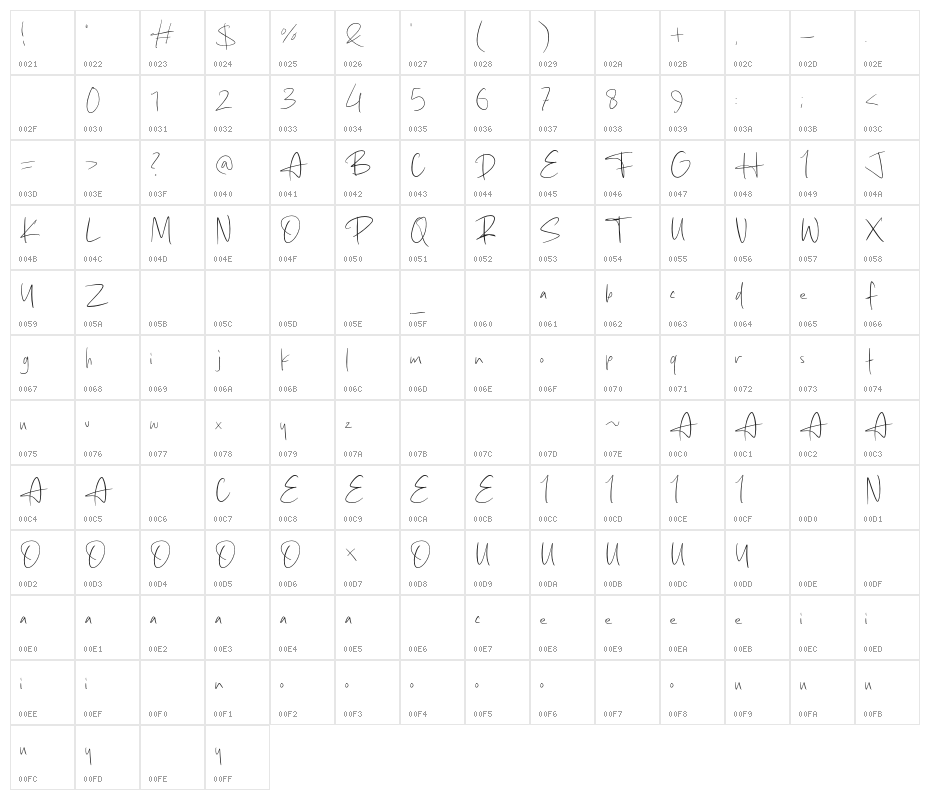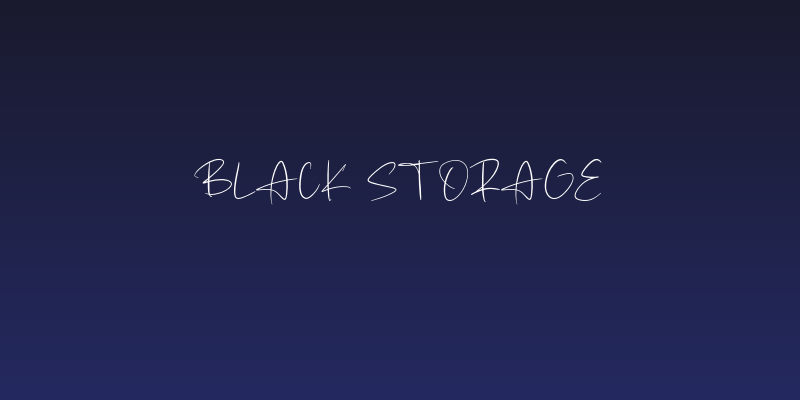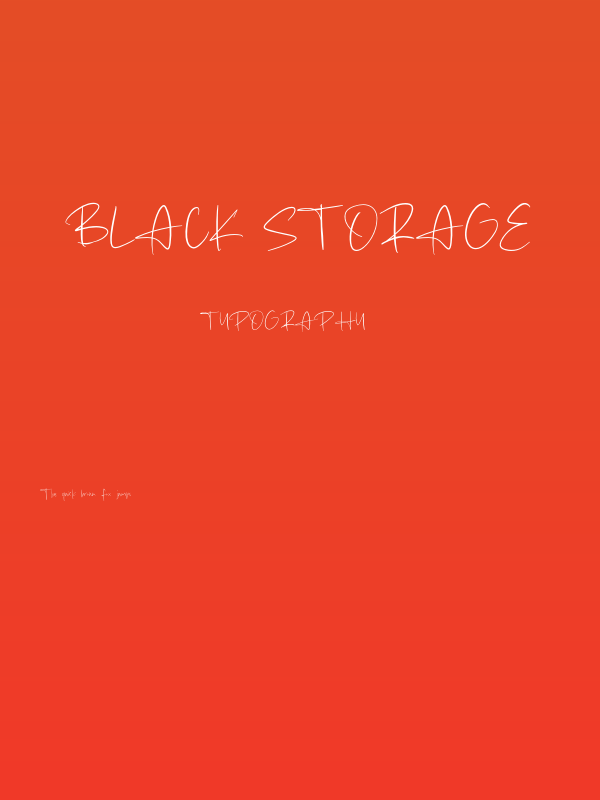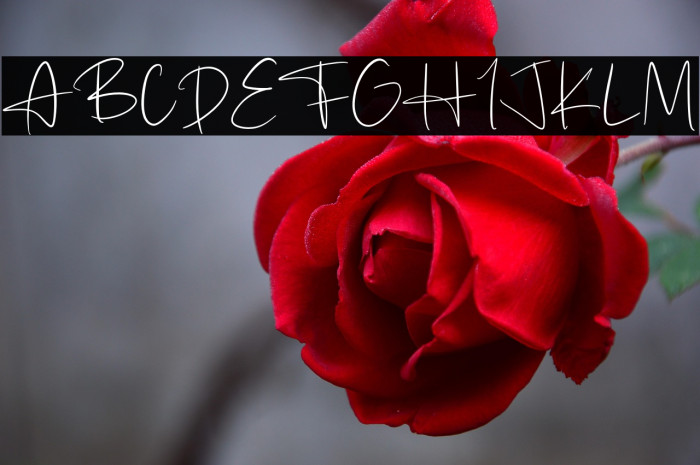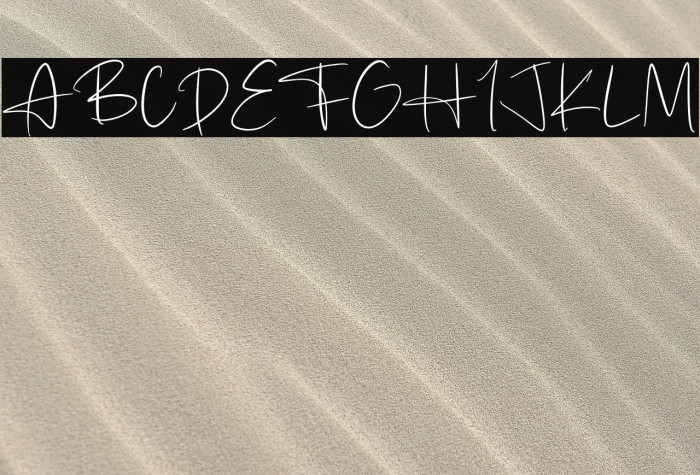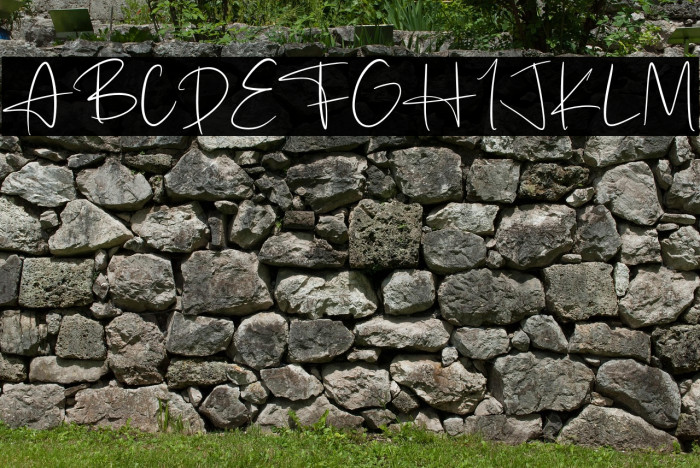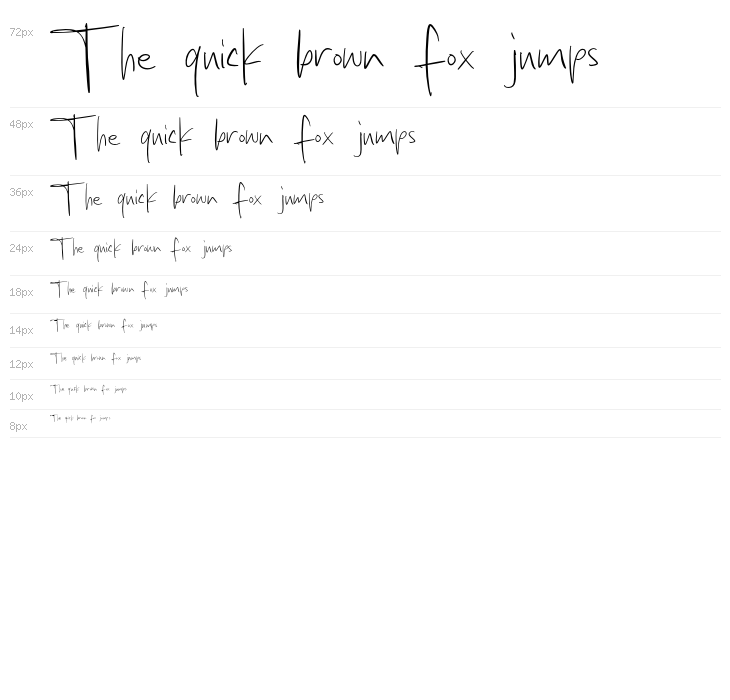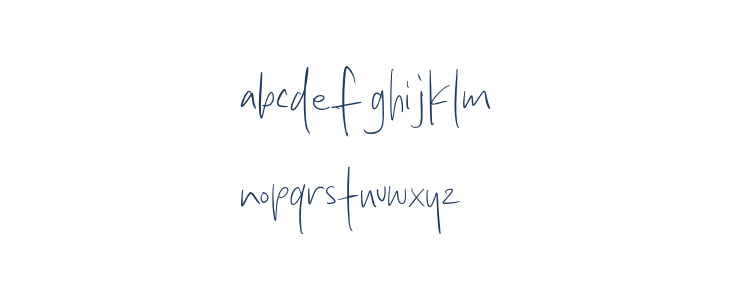
Black Storage Font
Black Storage Description
This font exudes a casual, handwritten style with a playful and informal appearance. The characters are slightly irregular, mimicking the natural flow of handwriting. The strokes are thin and consistent, giving it a light and airy feel. The uppercase and lowercase letters maintain a cohesive look, with a slight slant that adds to the handwritten effect. The numbers and special characters follow the same style, ensuring uniformity across all elements. This font is perfect for projects that require a personal touch or a relaxed vibe.
| Use Case | Logos, Greeting cards, Personal notes |
| Proposed Projects | Ideal for personal notes, greeting cards, casual branding, and creative projects that require a personal touch. |